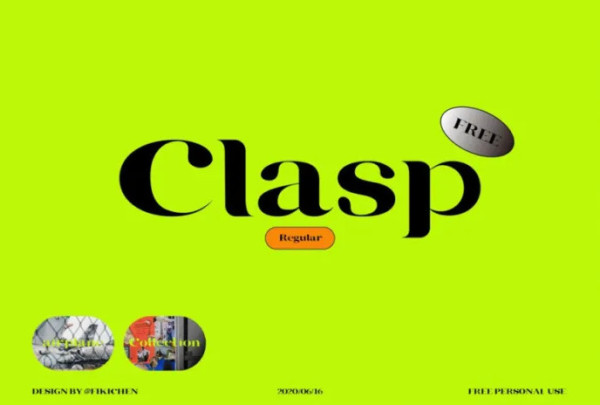
Clasp Font
Clasp Font is an elegant and incredibly authentic serif font. It has a vintage touch and an incredibly unique feel, so add it confidently and you will love the results.
Clasp excels in display settings such as headlines, titles, branding projects, Logo design, packaging, magazine headings, advertising, short or long text.